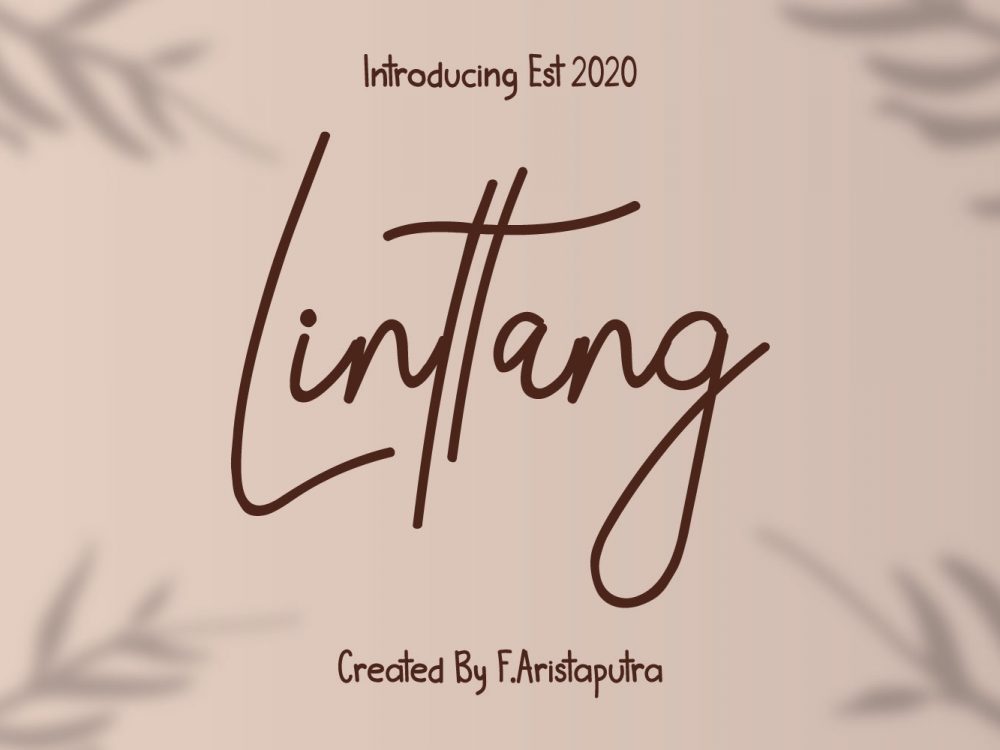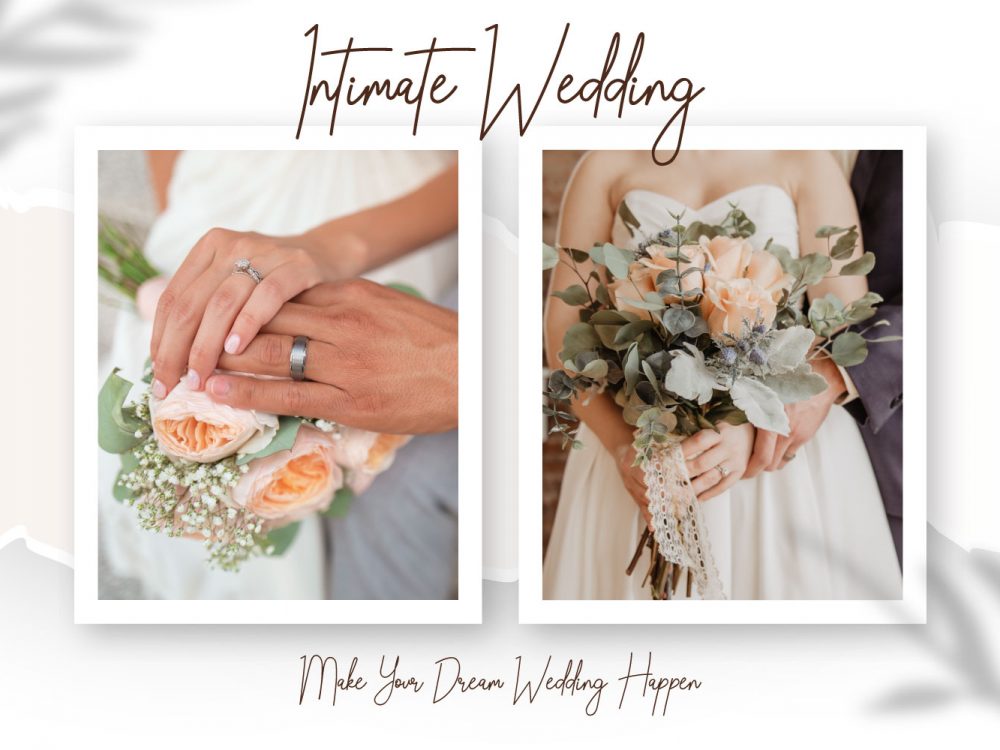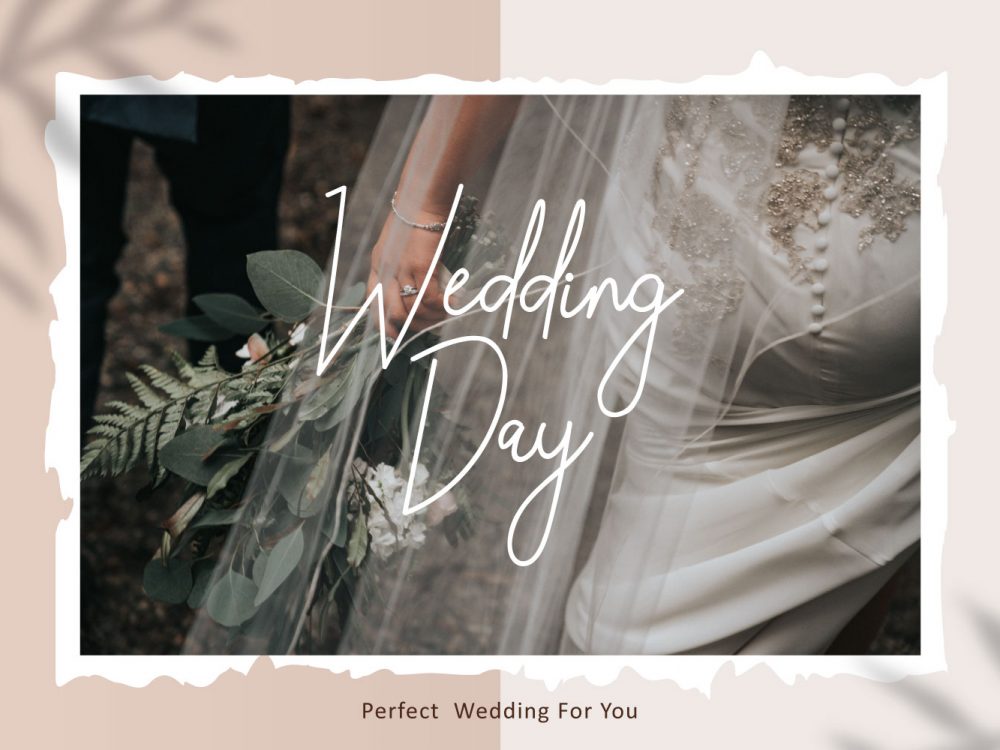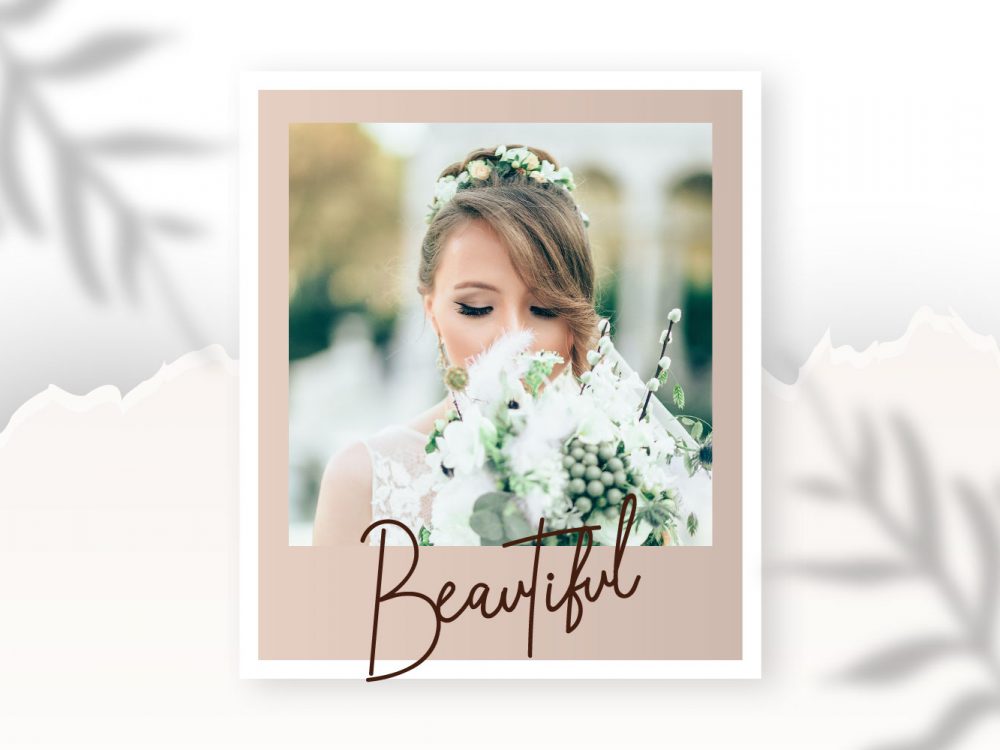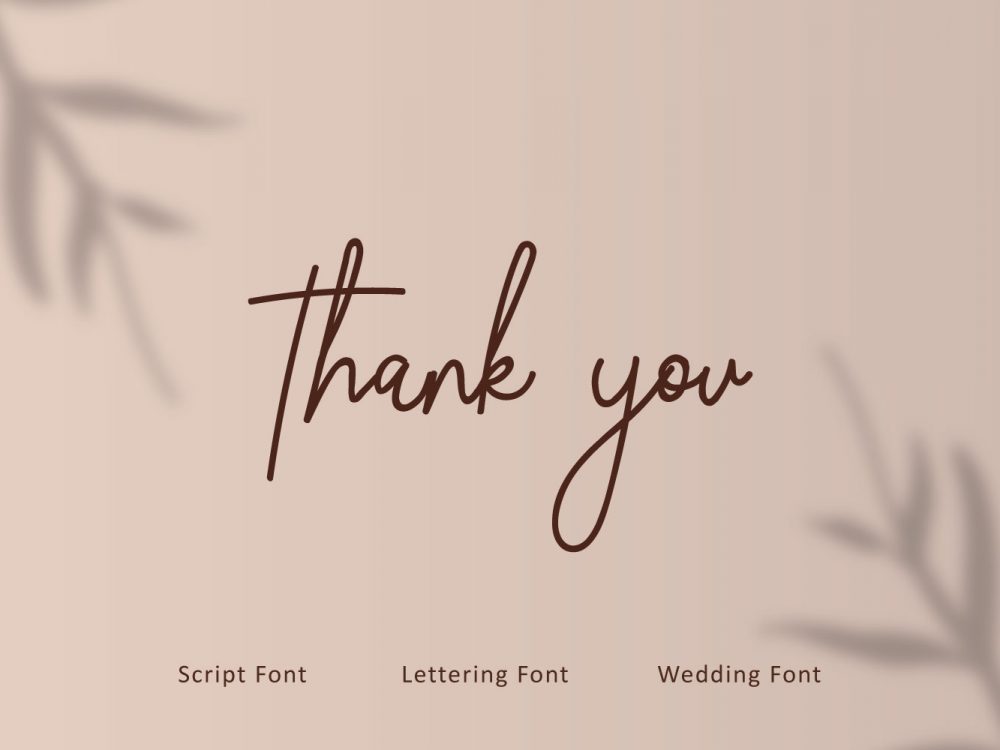
Linttang Free Font
Linttang Free Font is a scripted high quality handwritten font with an elegant style. This font maintains a classy calligraphic influence while feeling contemporary and fresh and is perfect for a variety of design projects that require a modern scripting font. These can be memorable posters, wedding invitations, postcards, branding, flyers, and more. If you like it don’t forget to check out the full version.